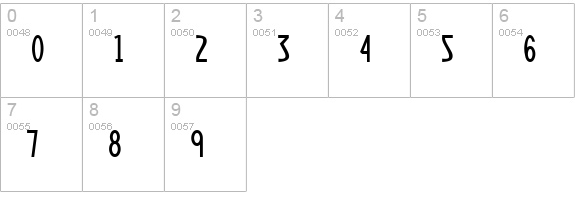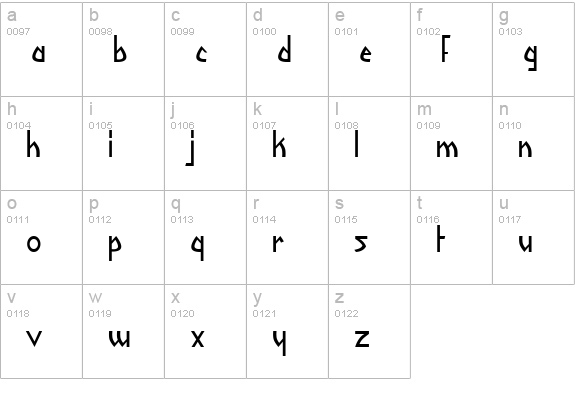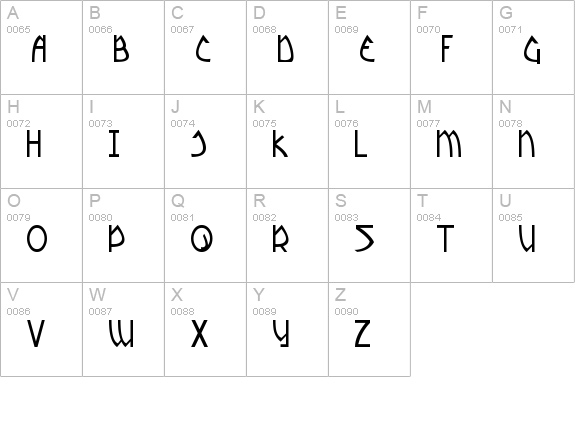
Yoshitoshi Font Details
Yoshitoshi font is a beautifully crafted typeface that exudes elegance and sophistication. With its clean lines and modern aesthetic, Yoshitoshi is perfect for various design projects, from branding to editorial designs. This versatile font offers a unique blend of classic and contemporary elements, making it suitable for a wide range of applications. What sets Yoshitoshi font apart is not only its stunning design but also the fact that it is available for free. Yes, you read that right - this exceptional font can be downloaded at no cost from FontsMarket.com. Whether you are a professional designer looking to add a touch of refinement to your work or a hobbyist searching for a high-quality font for personal projects, Yoshitoshi font is an excellent choice. Don't miss the opportunity to enhance your designs with this exquisite typeface - download Yoshitoshi font today and elevate your creations to new heights!